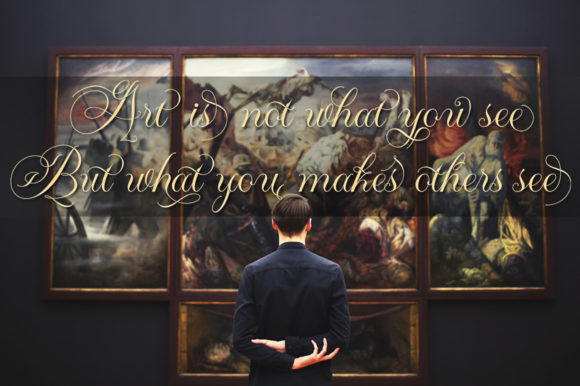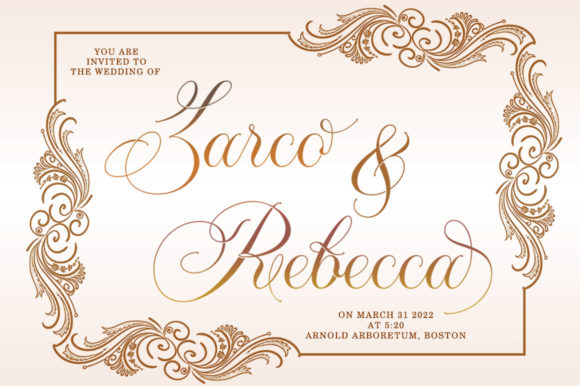
Brigston Font
db-ku.com - Script & Handwritten -- Brigston is a distinct and classic styled script font. It looks stunning on wedding invitations, thank you cards, quotes, greeting cards, logos, business cards and every other design which needs a handwritten touch.